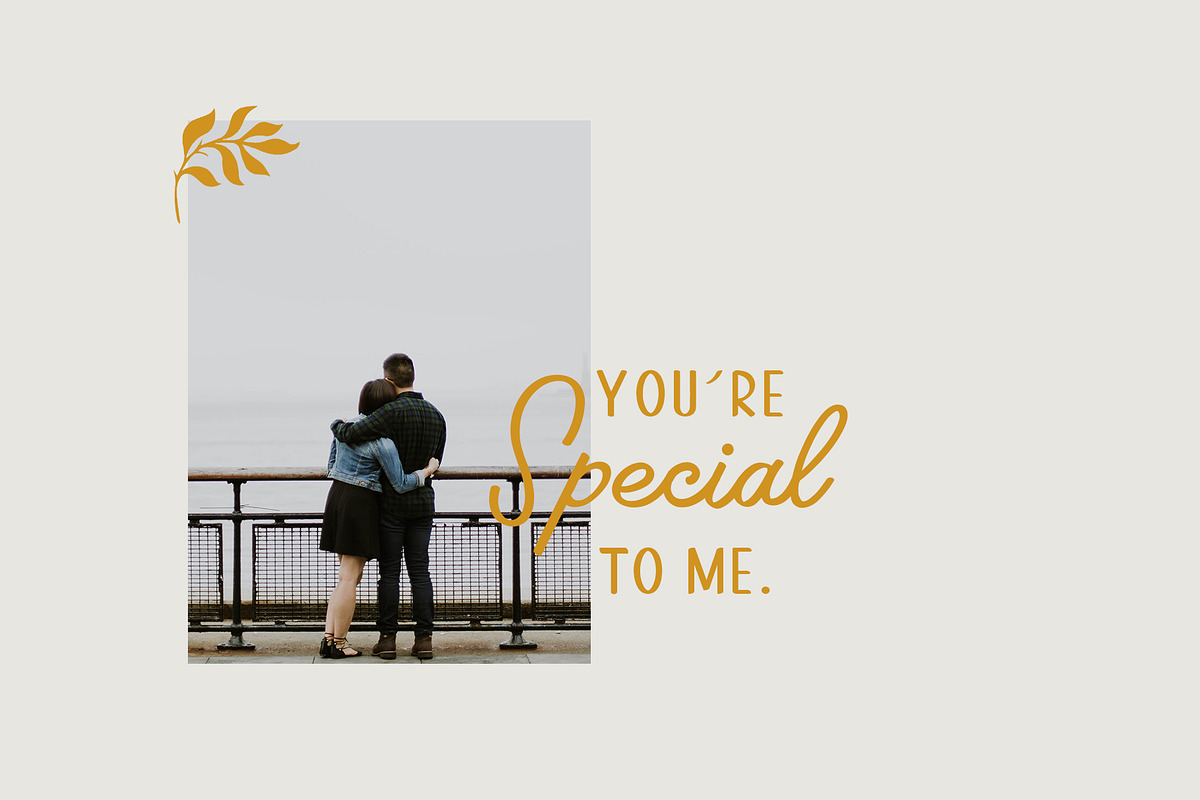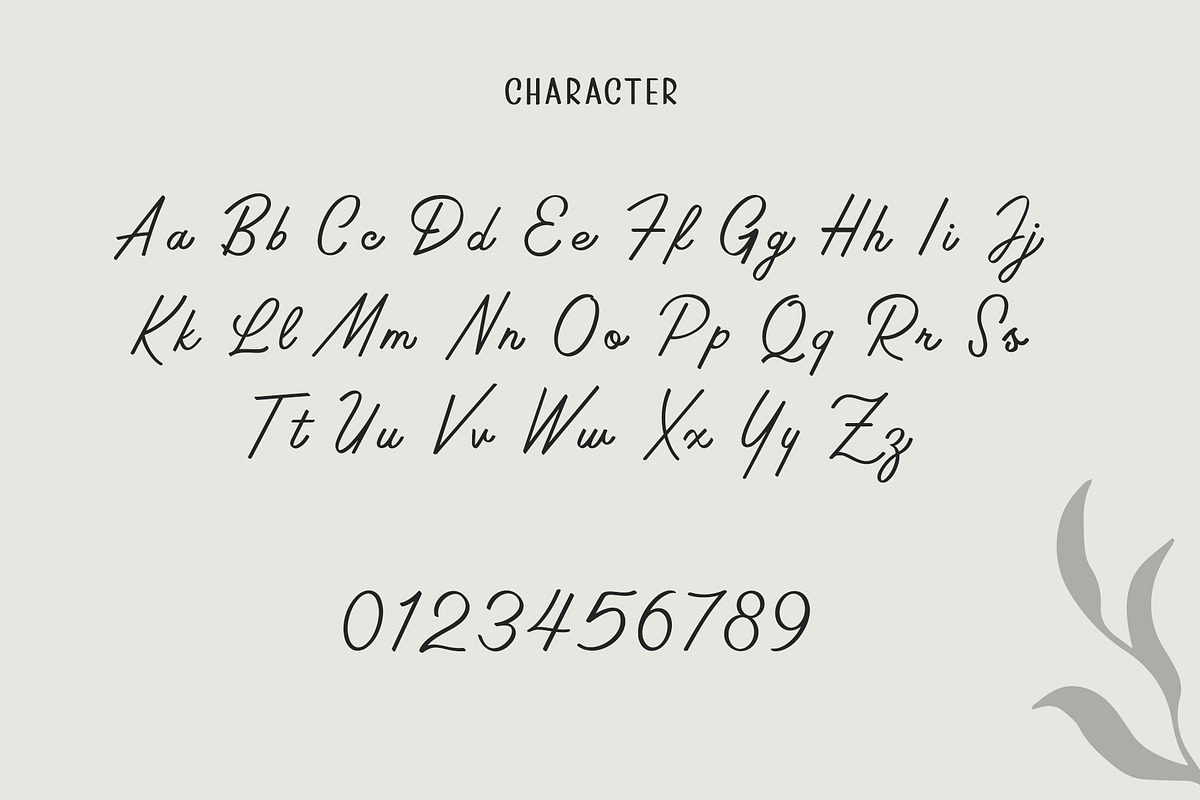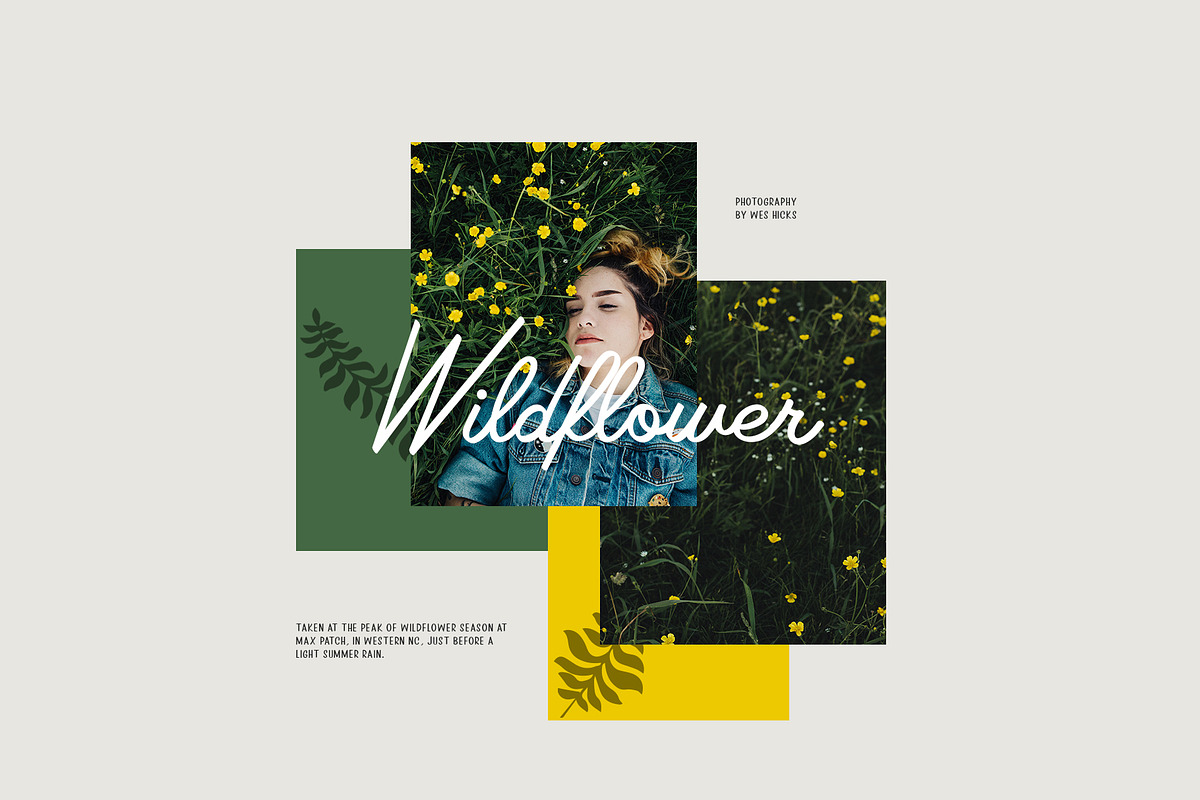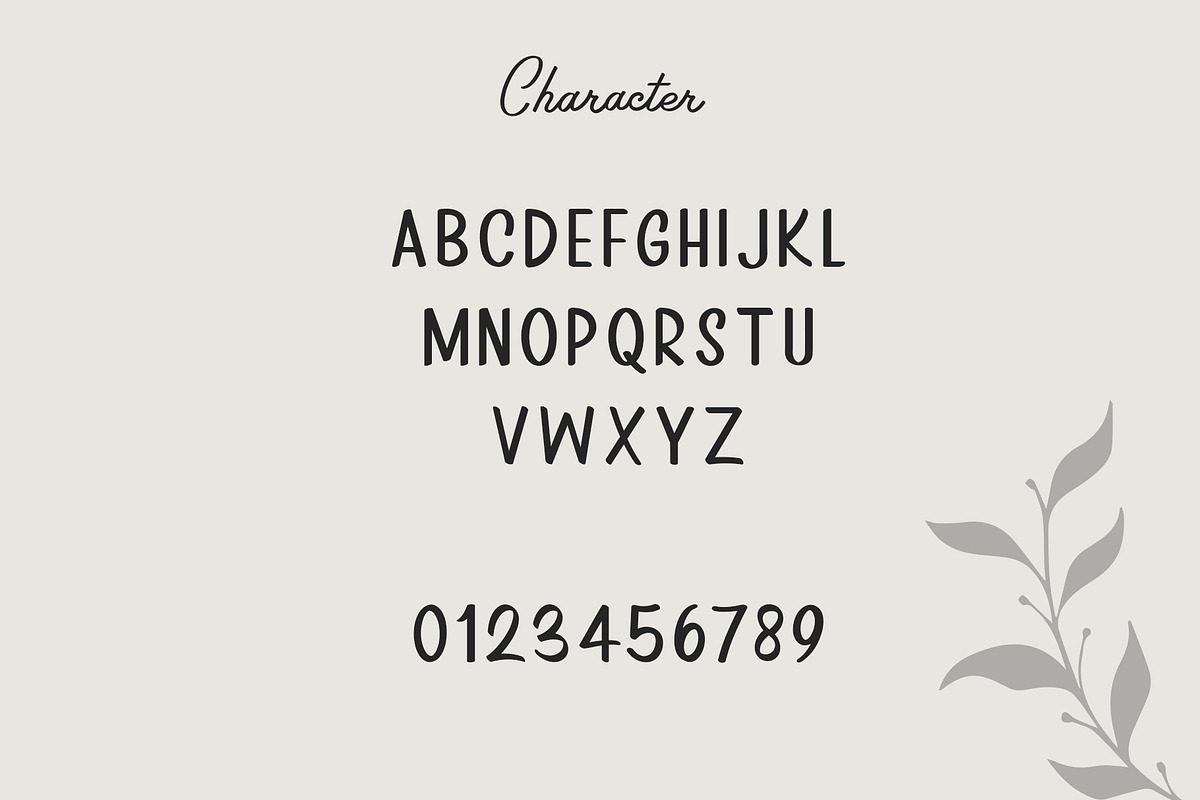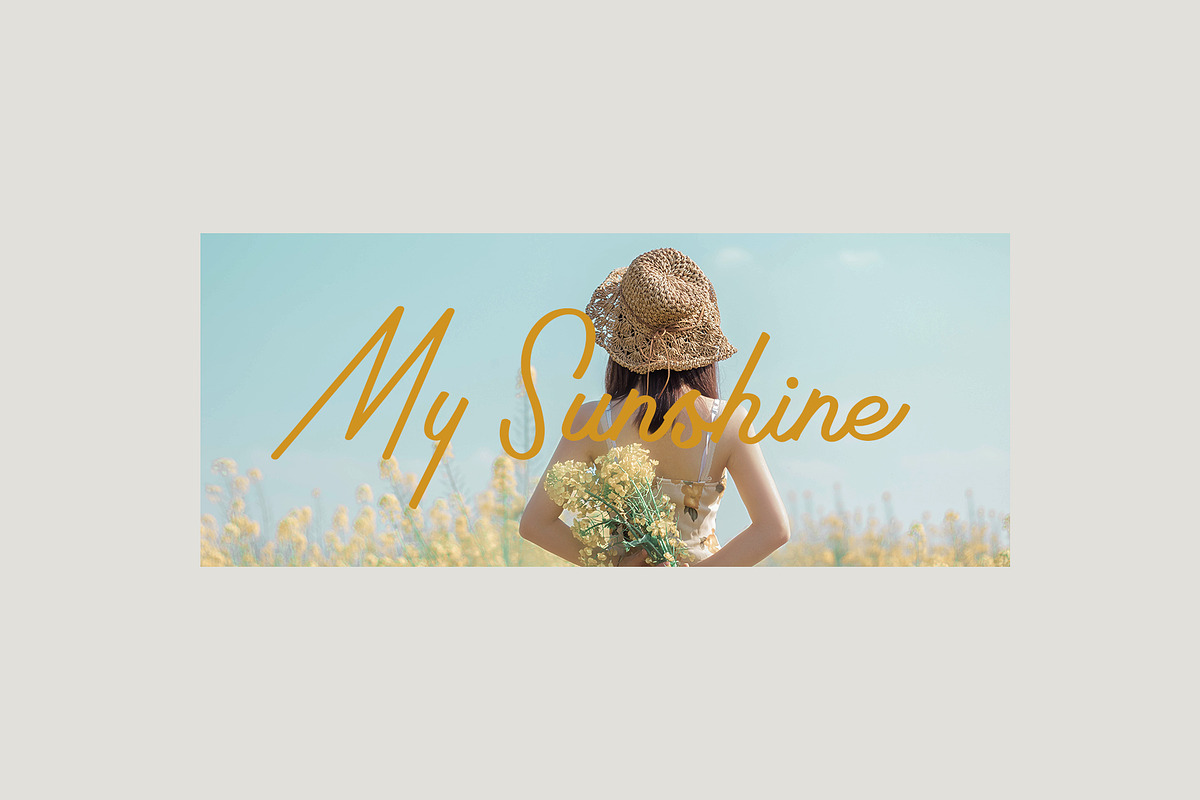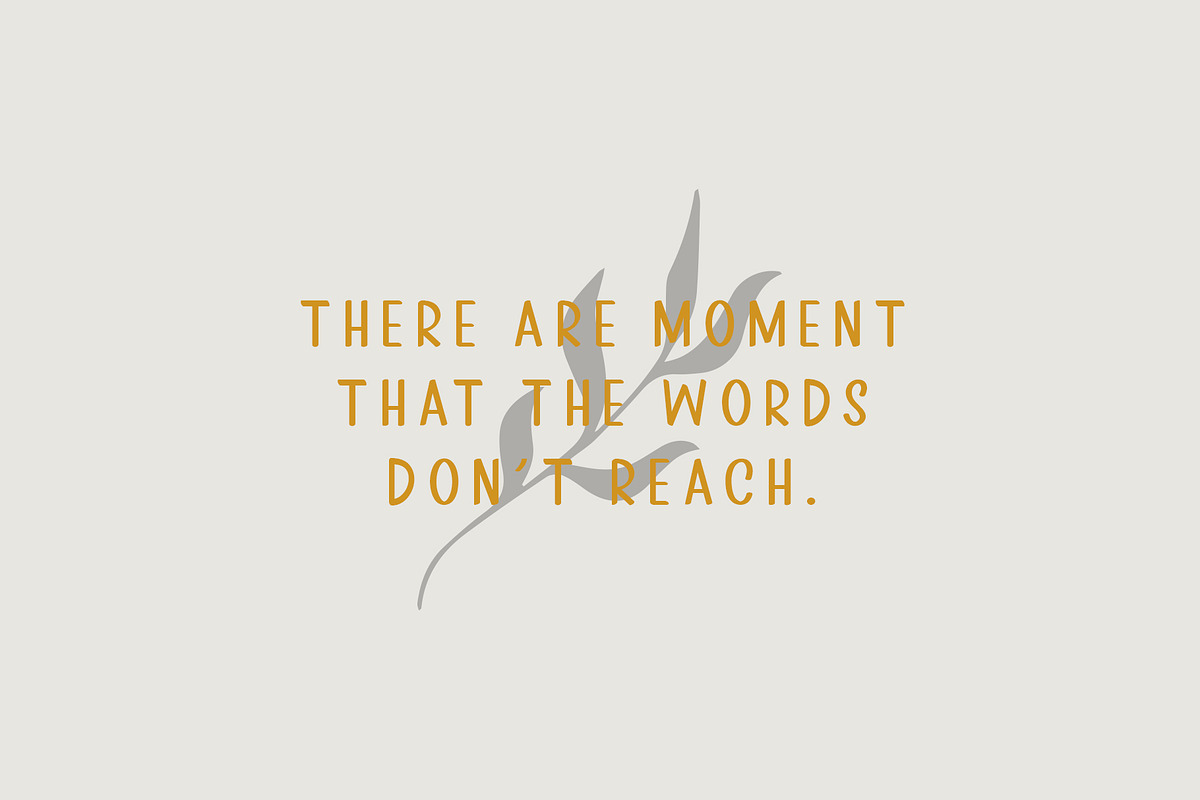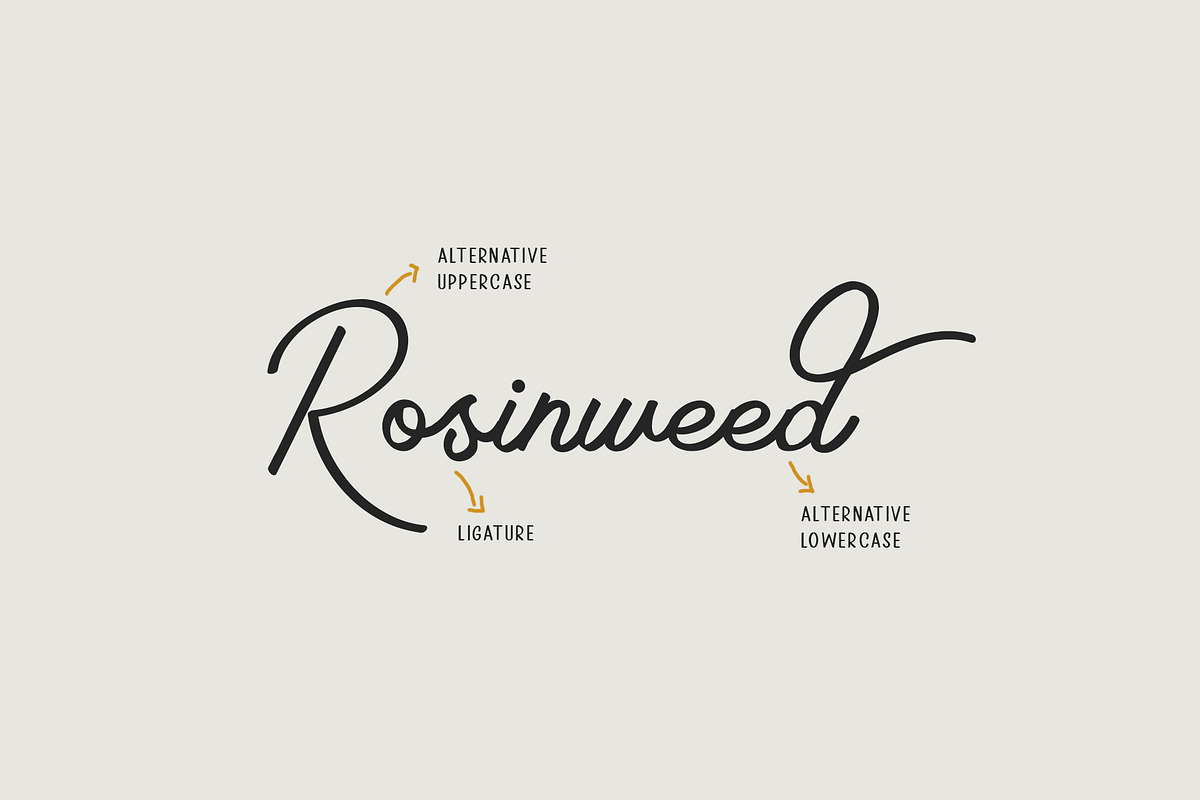
Rosinweed Font ( + Bonus Leaves )
Rosinweed is a duo font consisting of script fonts and sans serif, which are combined and suitable for your design needs.This font is elegant, casual and has a feminine style but is also strict on the script font. while the sans serif font consists of capital letters, which can be complemented and combined with the script font.
Rosinweed font has several features such as supporting multi-language, ligature, alternative character, punctuation, and encoded PUA. This font is very suitable for your graphic design needs such as postcards, cards, posters, branding, logos, magazines, etc.
Script & Sans Serif Font
Alternative character
multi language support